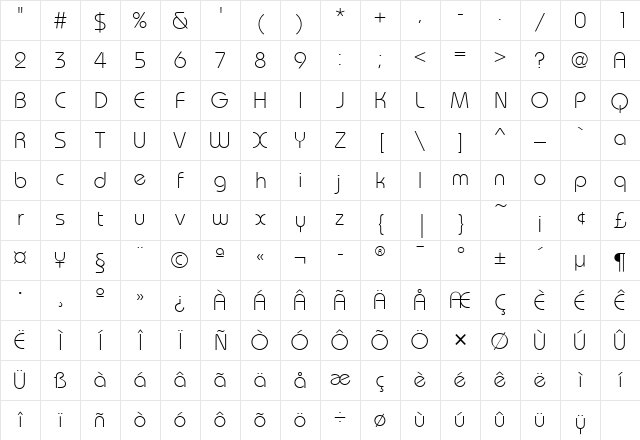
Complete BauhausITC Light glyph index. Displaying only characters natively supported by BauhausITC Light font.
BauhausITC is a composed and adaptable typeface that performs quietly and consistently across a wide range of design contexts. Its slender proportions lend an understated elegance to any composition.
Who designed the BauhausITC Light font?